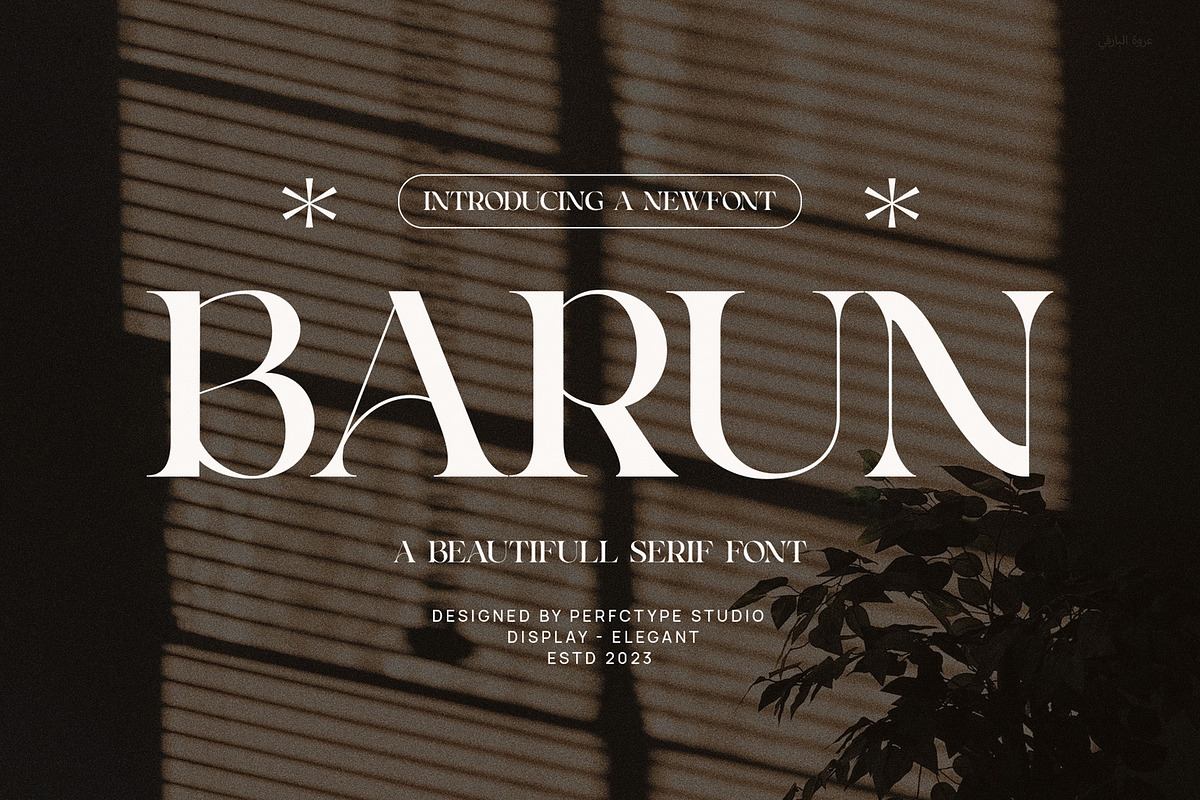
Elevate your design with timeless refinement using the Barun Elegant Serif Font Typeface Free Download — a sophisticated serif typeface designed to bring clarity, elegance, and professionalism to your work. With sharp serifs, balanced proportions, and graceful letterforms, Barun is ideal for luxury branding, editorial layouts, book covers, high-end product packaging, and fashion-related projects.
Barun strikes the perfect balance between classic structure and modern minimalism. Whether you're creating a magazine headline or crafting a corporate identity, this font delivers a polished look that resonates with confidence and prestige.